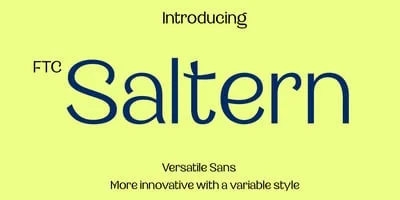
Saltern Font
Saltern Font is a charming and distinctive typeface that evokes the raw beauty of coastal landscapes and the artistry of handcrafted design. This unique font is perfectly suited for projects that aim for an organic, artisanal, or slightly rustic aesthetic. Imagine Saltern Font gracing the labels of small-batch artisanal food products, adding a quaint touch to local market branding, or enhancing the visual appeal of eco-friendly and sustainable businesses. It's also ideal for crafting unique invitations for outdoor events, designing eye-catching posters for craft fairs, or lending an authentic, earthy feel to blogs about travel and nature. Its often slightly irregular yet harmonious forms make it superb for designs seeking warmth, authenticity, and a connection to the natural world.
What makes Saltern Font so exciting is its ability to capture a sense of human touch and natural imperfection, setting it apart from overly polished digital typefaces. It possesses an inherent character that feels grounded and genuine, as if each letter has been carefully drawn or carved, bringing a sense of warmth and bespoke artistry to your text. This font isn't just about conveying words; it's about conveying a story of craftsmanship and natural beauty. Its organic curves and unique details create a rich visual experience that instantly adds depth and personality to your design, making it truly captivating for projects that value authenticity.
Saltern Font typically focuses on its distinctive display qualities, often available in a standard regular weight, possibly with a few stylistic alternatives that enhance its natural feel. While it may not feature an extensive range of weights like a traditional text font, its strength lies in the singular charm and consistent design of its primary form. Its nuanced strokes and flowing shapes ensure that its unique appearance is maintained across various applications, making it highly effective for impactful headings, artistic accents, and designs where a rustic yet refined visual impact is desired.
Embrace the organic charm and artisanal feel with Saltern Font for your next authentic project.